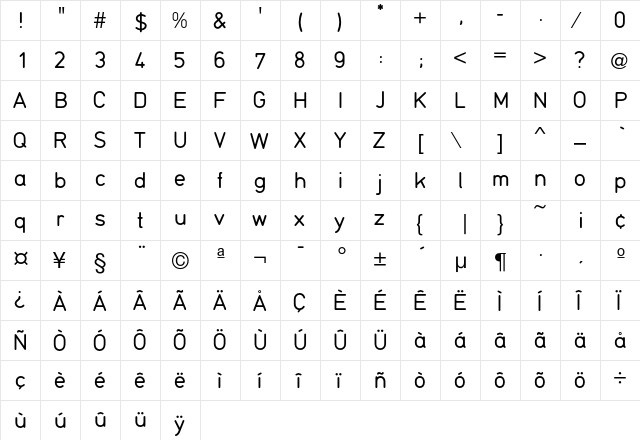
Din16 Normal
Design Context for Din16 Typeface
Din16 is a composed and adaptable typeface that performs quietly and consistently across a wide range of design contexts.